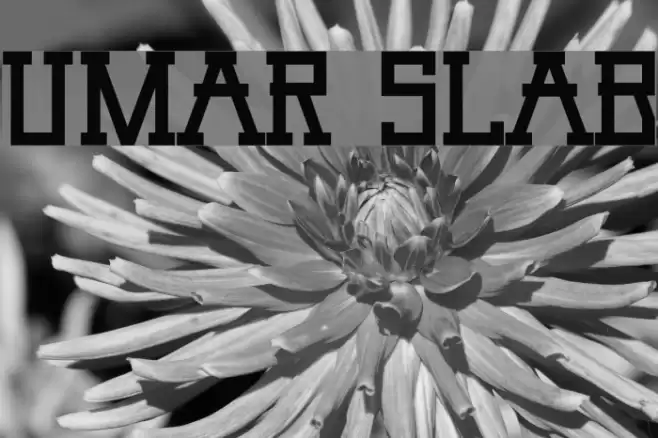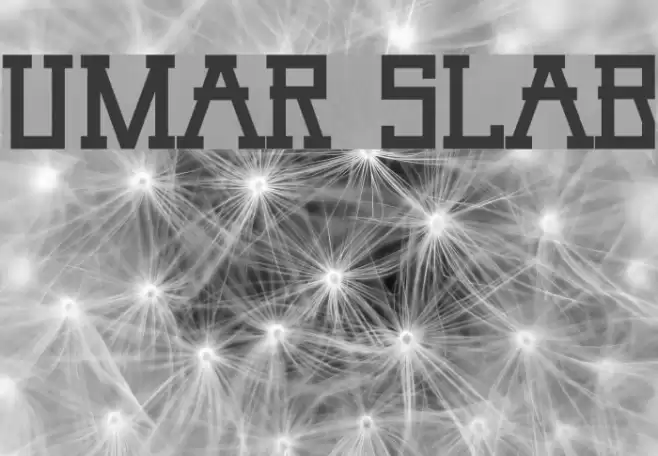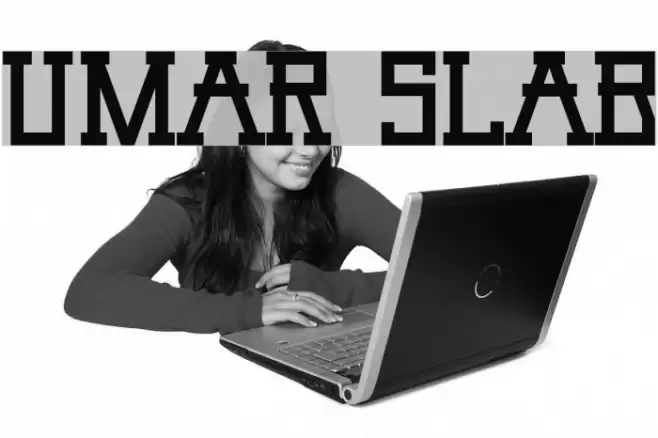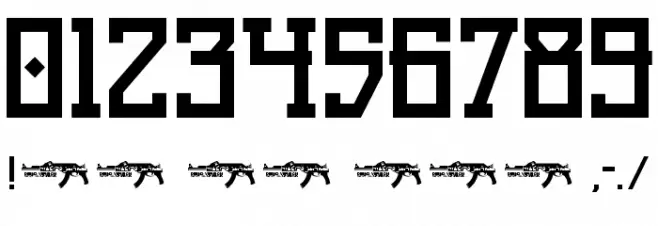
Umar Slab Font
Umar Slab Description
This font features a bold, geometric design with strong, angular lines and a solid presence. The characters are constructed with a slab serif style, giving them a robust and authoritative look. The uppercase letters are particularly striking, with sharp edges and a uniform height that creates a cohesive and impactful appearance. The numerals are equally bold, maintaining the same geometric style, which ensures consistency across different types of content. The special characters are designed to match the overall aesthetic, providing a seamless integration into any design project. This font is ideal for projects that require a strong visual impact and a modern, industrial feel.
A bold, geometric slab serif font with strong, angular lines and a modern industrial aesthetic from Uncategorized fonts.